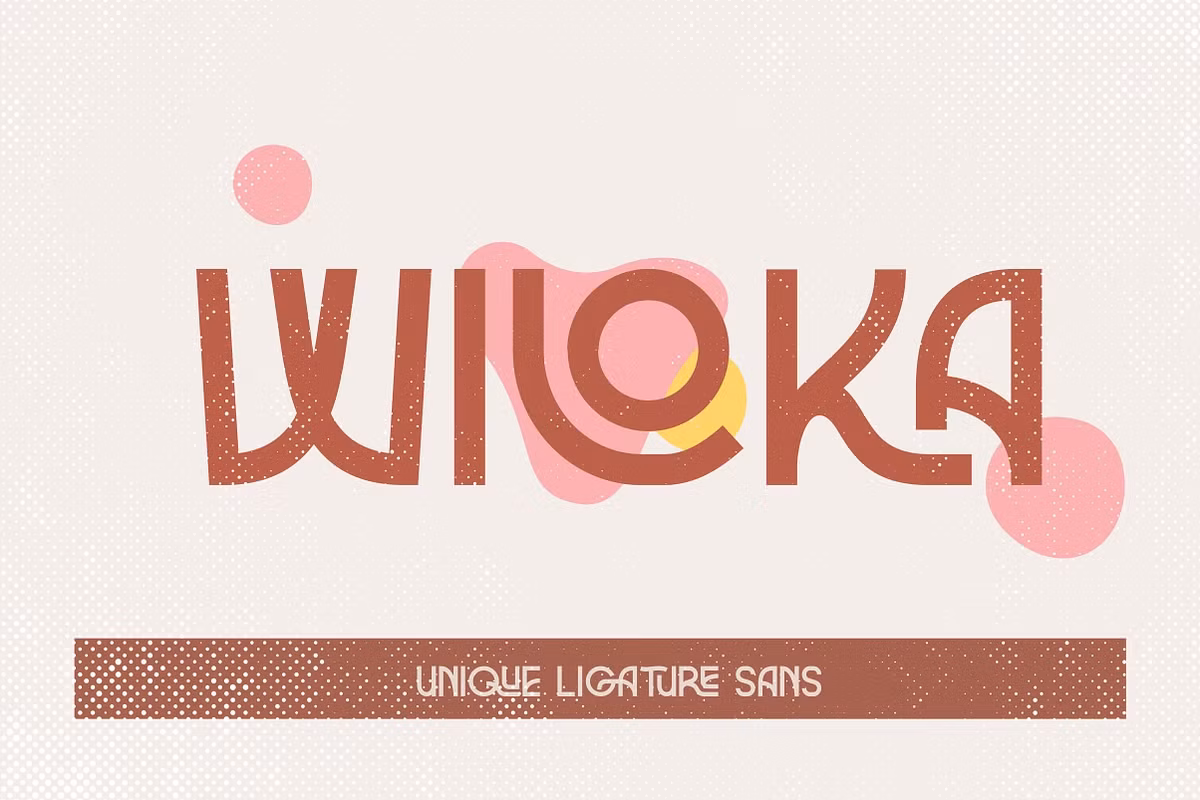
Make a bold and modern statement with Wiloka - Unique Sans Font Free Download. This contemporary sans serif typeface combines clean lines and unique, geometric shapes to create a fresh and innovative look. Perfect for logos, branding, posters, websites, and any design that needs a sleek, stylish, and unique touch.
Wiloka’s distinctive design sets it apart, offering an edgy yet professional aesthetic. It includes uppercase and lowercase letters, numerals, punctuation, and multilingual support—ideal for testing out creative layouts and making your designs stand out.